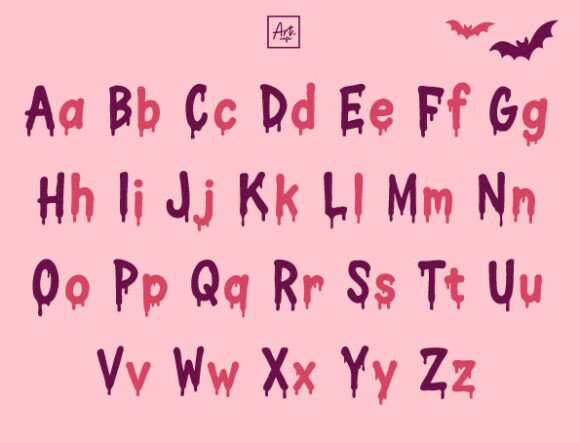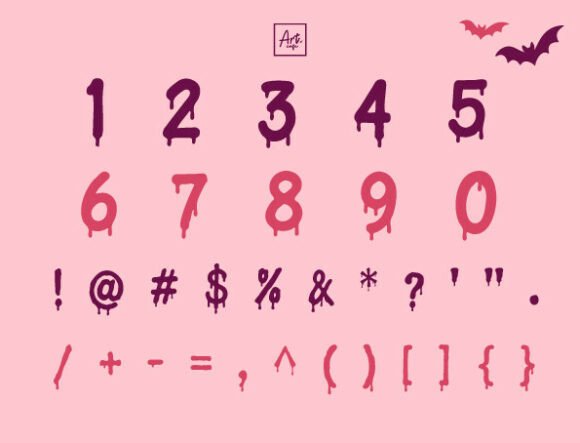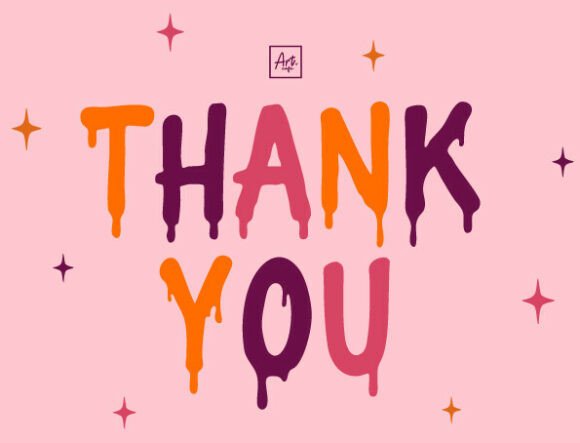
Introduction to Creepyhalloween Font
As the sun sets on a crisp October evening, and the first hints of a spooky atmosphere start to creep in, many designers find themselves itching to create something truly special. For some, this means breaking out their favorite Halloween-themed fonts and getting to work on a new project. But for those in search of the perfect font to capture the essence of the season, one name stands out: Creepyhalloween Font.
This bold, decorative typeface is a game-changer for designers looking to add some serious Halloween flair to their creative projects. With its thick letterforms and signature dripping effect, Creepyhalloween Font is the perfect choice for anything from haunted house flyers to creepy greeting cards. And the best part? It’s available for free download, making it an invaluable resource for designers on a budget.
Whether you’re working on a high-quality design for a client or simply want to create something fun for a friend, Creepyhalloween Font is sure to bring a touch of spooky sophistication to your project. With a transparent background and high-quality design, this font is the perfect addition to any designer’s toolkit.
Key Features of Creepyhalloween Font
- Unique Gothic-inspired design perfect for creative projects and Halloween-themed designs.
- Includes a transparent background for easy integration into various design projects.
- Perfect for designers looking for a spooky and eerie font to add a touch of creativity to their projects.
- Ideal for use in various design projects, including digital art, graphic design, and print materials.
Honest Review: Creepyhalloween Font
I recently stumbled upon the Creepyhalloween Font while searching for a unique design resource to elevate my creative project. As a designer, I was excited to explore its potential and share my honest thoughts with you.
- ✨ The transparent background is a great feature, allowing for seamless integration into various design projects.
- ✨ The font’s eerie and spooky vibe is perfect for Halloween-themed designs, making it a great addition to my design toolkit.
- ⚠️ The font’s limited character set might be a drawback for some designers, especially those working on longer texts.
- ⚠️ Some characters may not render correctly in certain font sizes or styles, which can be frustrating.
Overall, I’m impressed with the Creepyhalloween Font‘s unique style and versatility. While it may have some limitations, it’s a great design resource for those looking to add a touch of eeriness to their creative projects. I’d definitely recommend it for Halloween-themed designs or other spooky projects.
To get the most out of the Creepyhalloween Font, try using it in combination with other design elements, such as spooky graphics and images. This will help you create a cohesive and engaging design.
The Creepyhalloween Font is perfect for a variety of creative projects, including Halloween-themed designs, spooky invitations, and horror movie posters. It’s also a great resource for designers who want to add a touch of whimsy and fun to their designs.